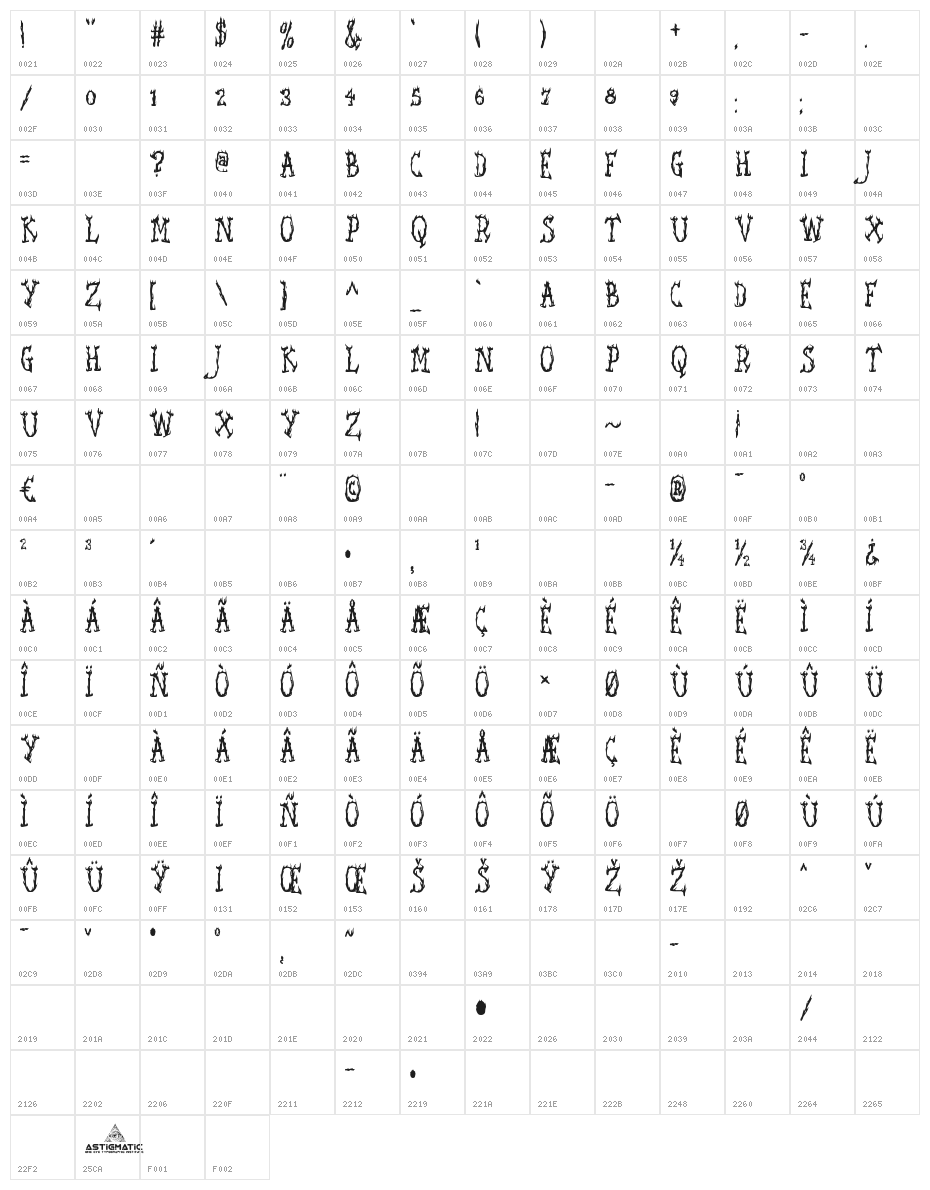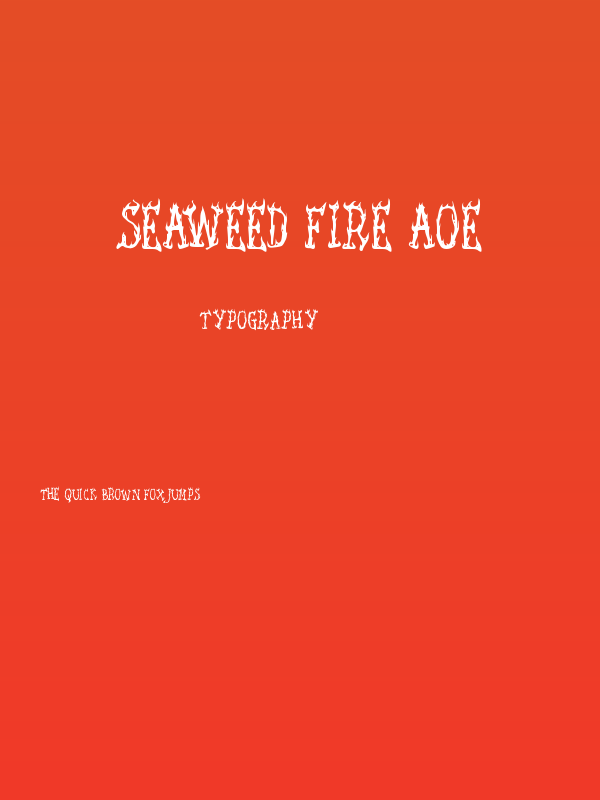
Seaweed Fire AOE Font
Seaweed Fire AOE Description
This font features a dynamic and fiery design, with each character appearing as if engulfed in flames. The edges are jagged and irregular, mimicking the unpredictable nature of fire. The uppercase and lowercase letters maintain a consistent style, with the flames adding a sense of movement and energy. Numbers and special characters are equally stylized, ensuring a cohesive look across all elements. The bold and dramatic appearance makes it ideal for attention-grabbing designs.
| Proposed Projects | Ideal for projects needing a dramatic flair, such as event posters, video game titles, or Halloween-themed graphics. |